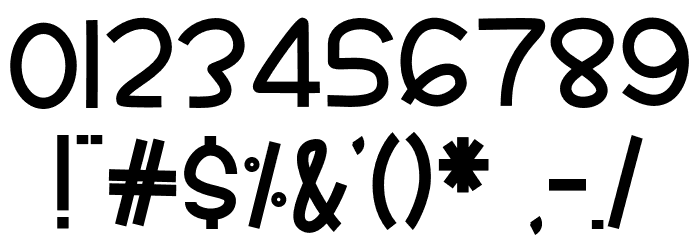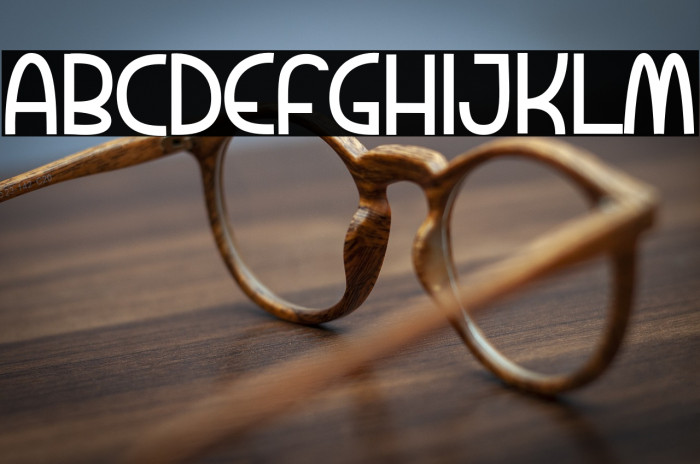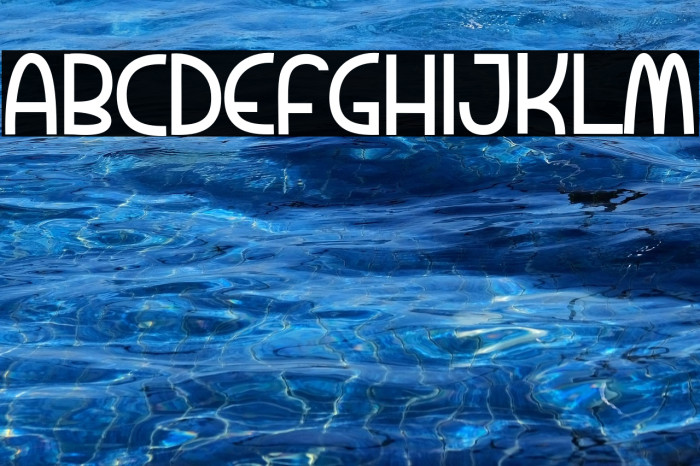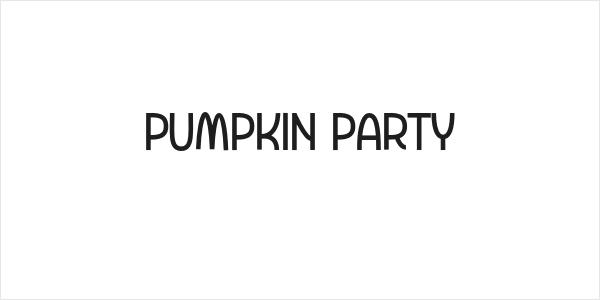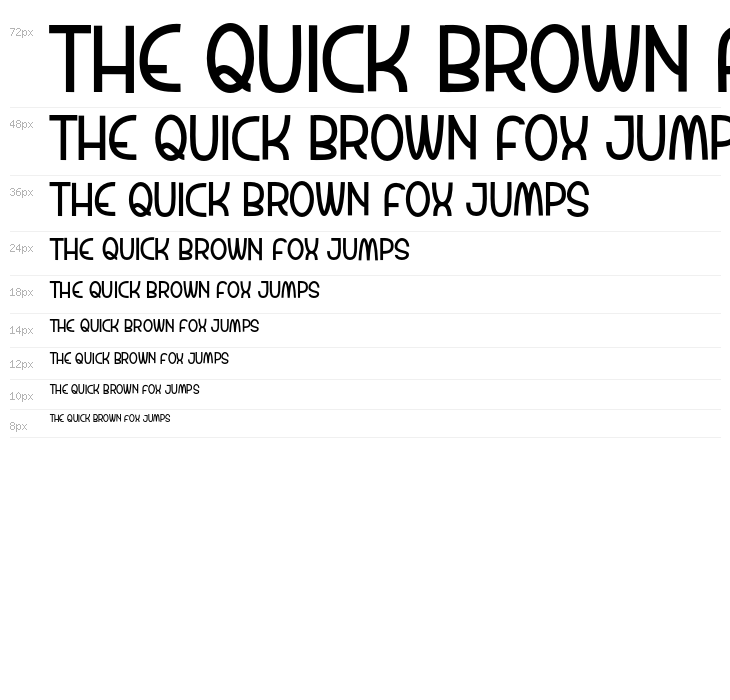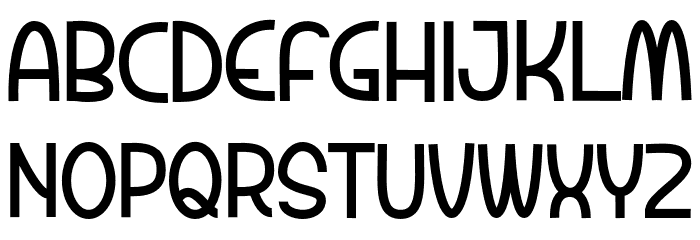
Pumpkin Party Font
Pumpkin Party Description
This font features a playful and rounded design, characterized by its smooth curves and consistent stroke width. The letters have a whimsical and friendly appearance, making it suitable for casual and fun projects. The uppercase and lowercase letters maintain a uniform style, with slightly exaggerated curves that add to its charm. The numerals and special characters follow the same rounded aesthetic, ensuring a cohesive look across all text elements. This font is versatile, offering a unique blend of readability and personality.